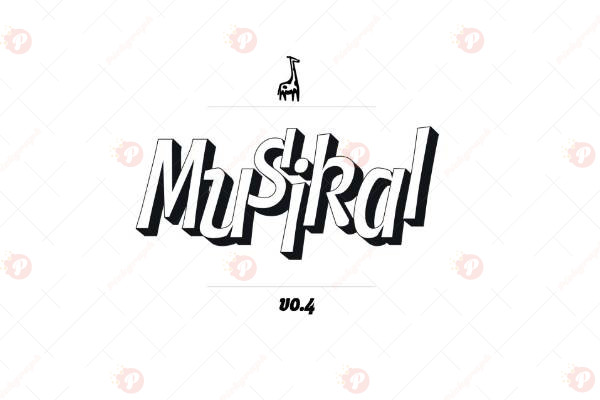
The Musikal Font Free is a stylish and modern display typeface inspired by the rhythm and flow of music. Its unique design elements give a creative and artistic vibe, making it perfect for music-related projects, event posters, album covers, festival branding, invitations, and social media graphics.
Whether you are designing for a concert, DJ event, or modern brand identity, the Musikal Font Free adds a dynamic and lively touch to your typography. It blends artistic flair with professional readability, making it versatile for both digital and print use.
Typeface: Display / Creative Typeface
Style: Artistic / Modern / Dynamic